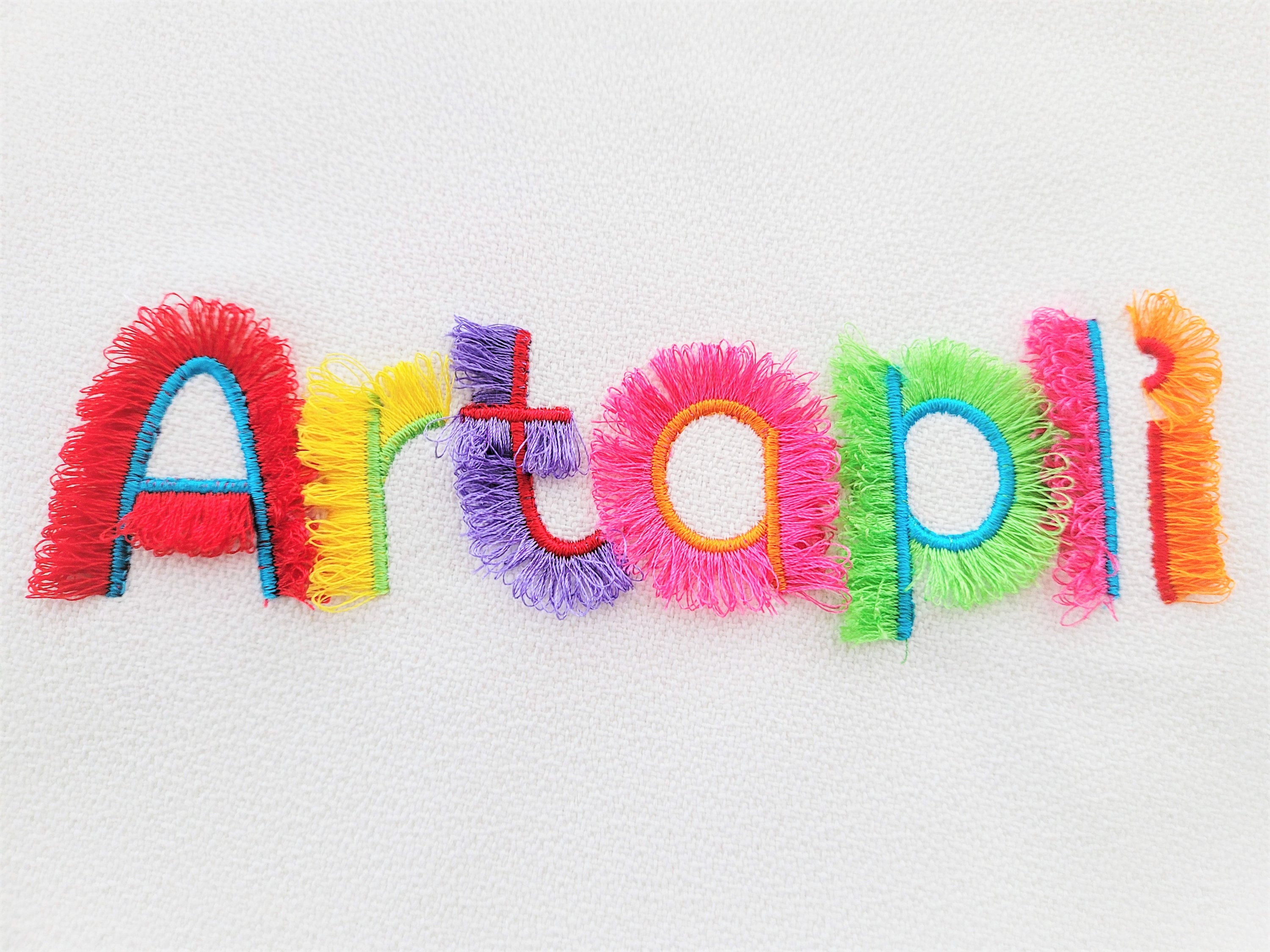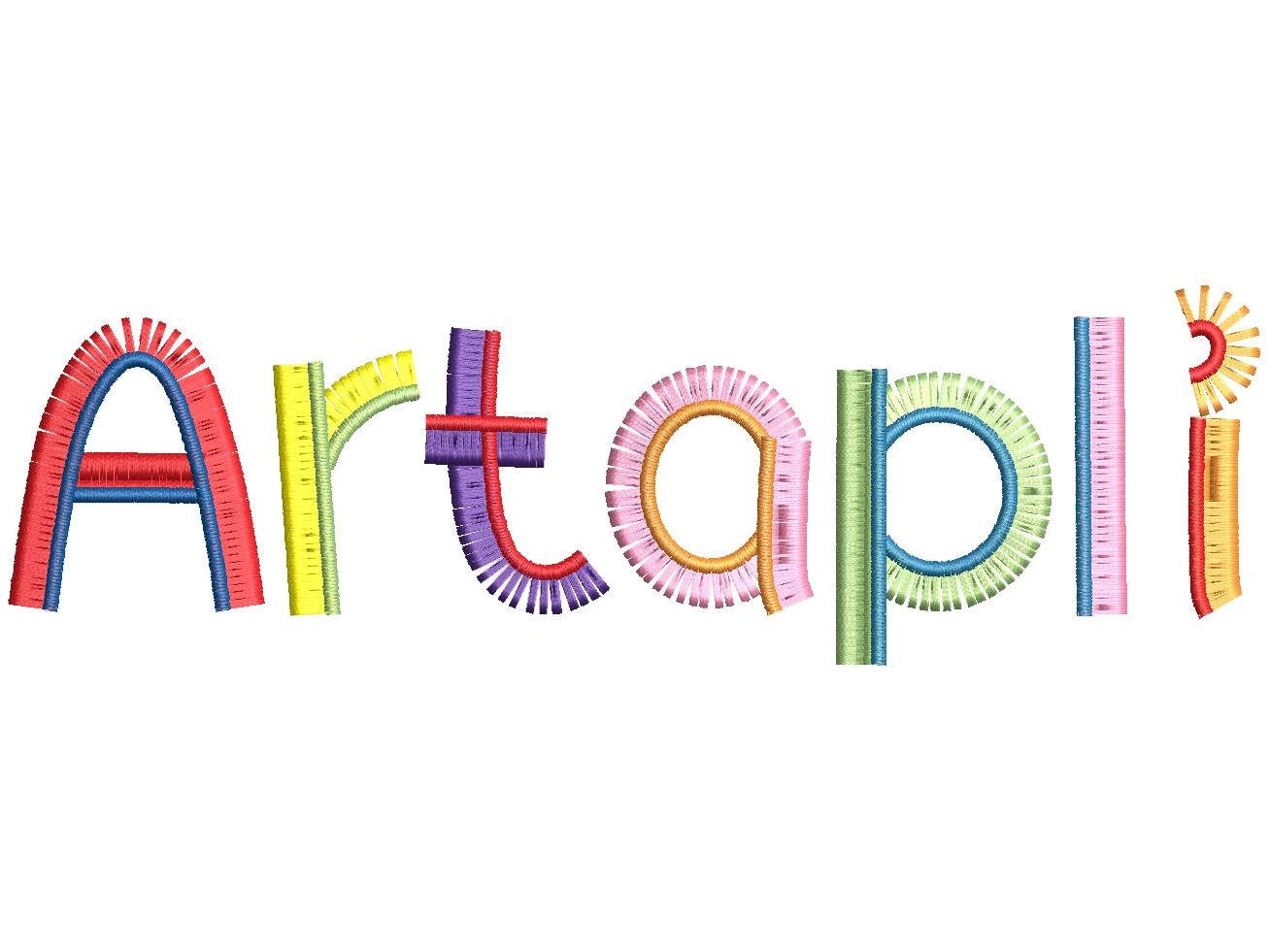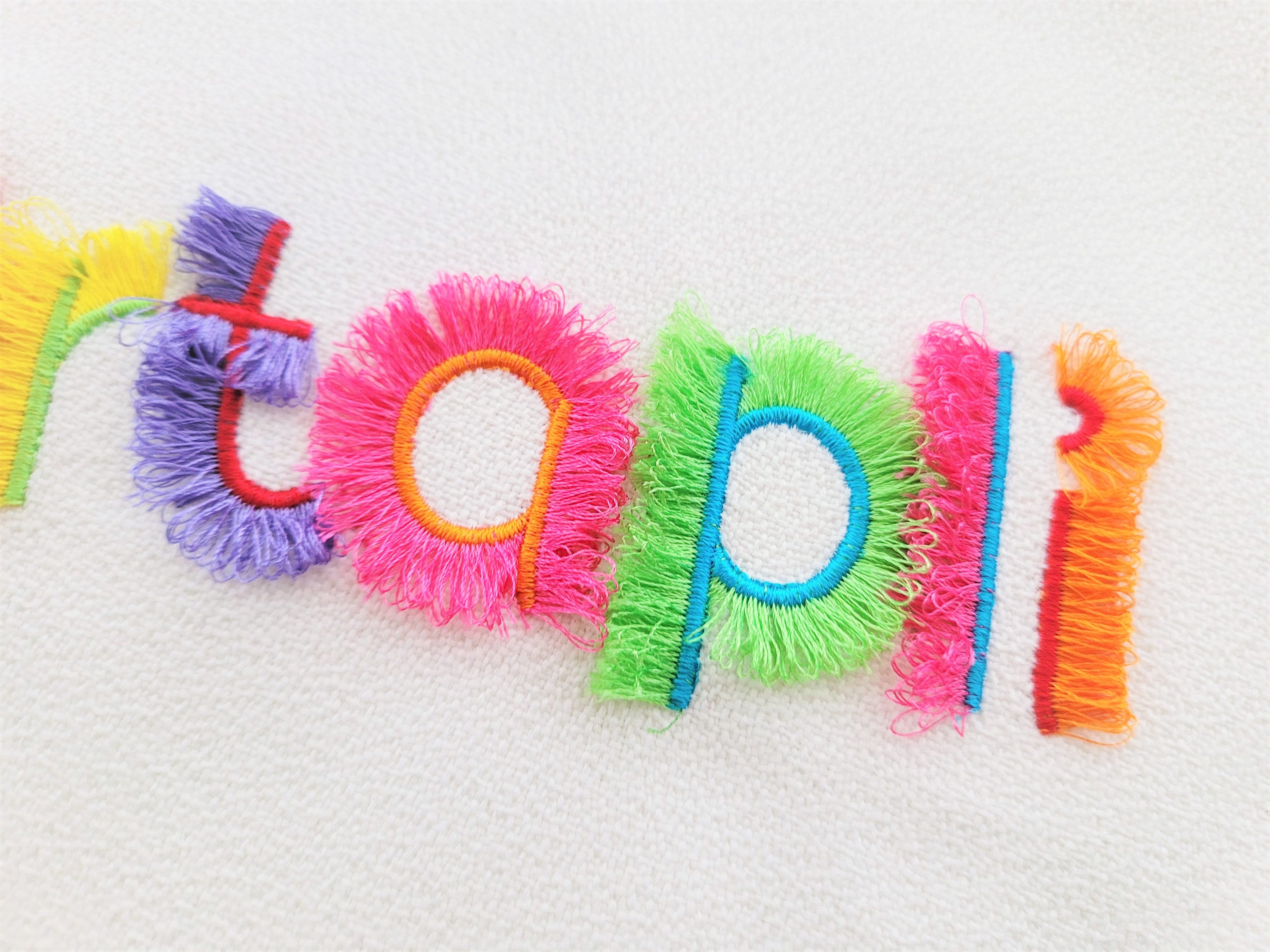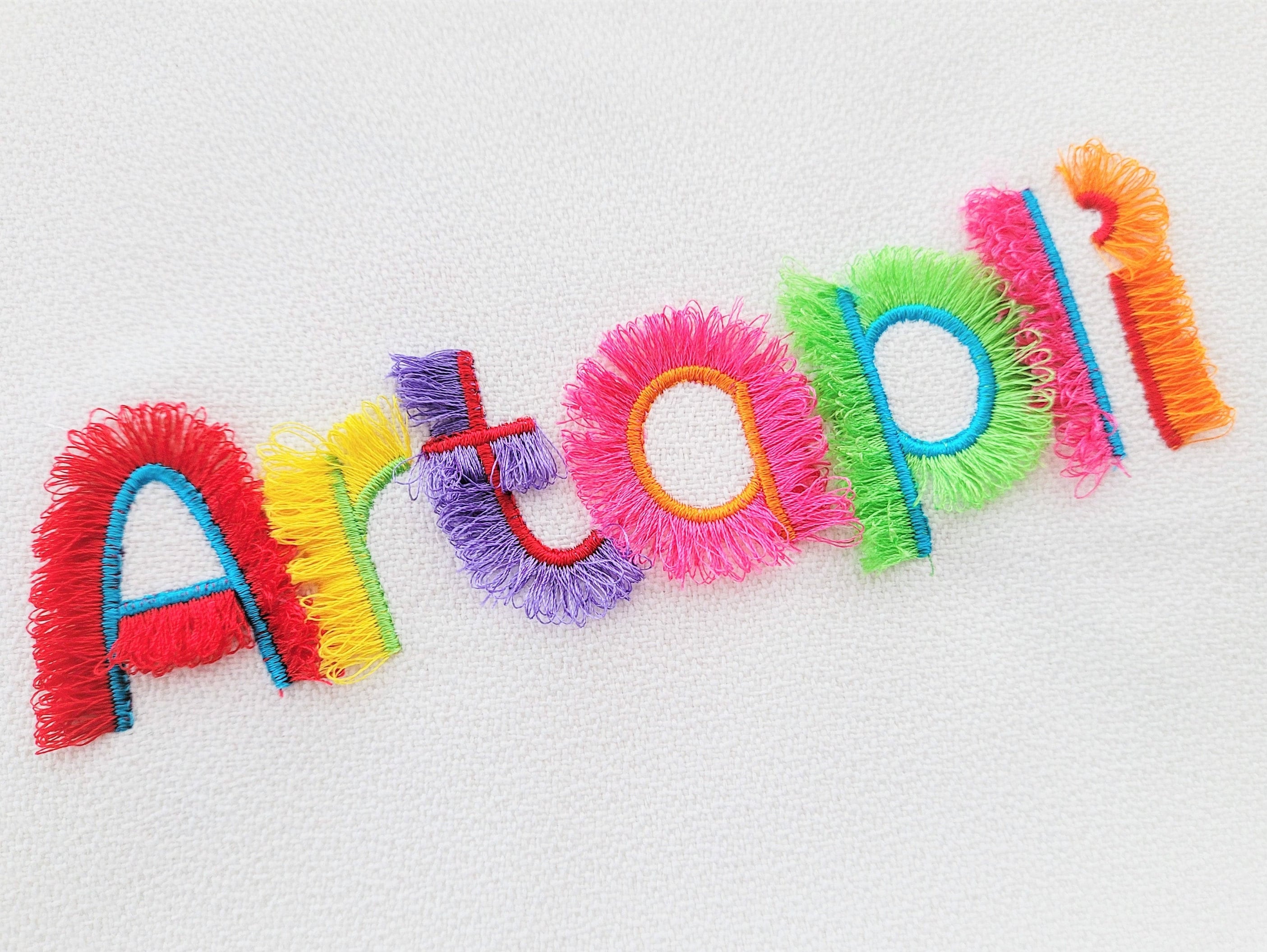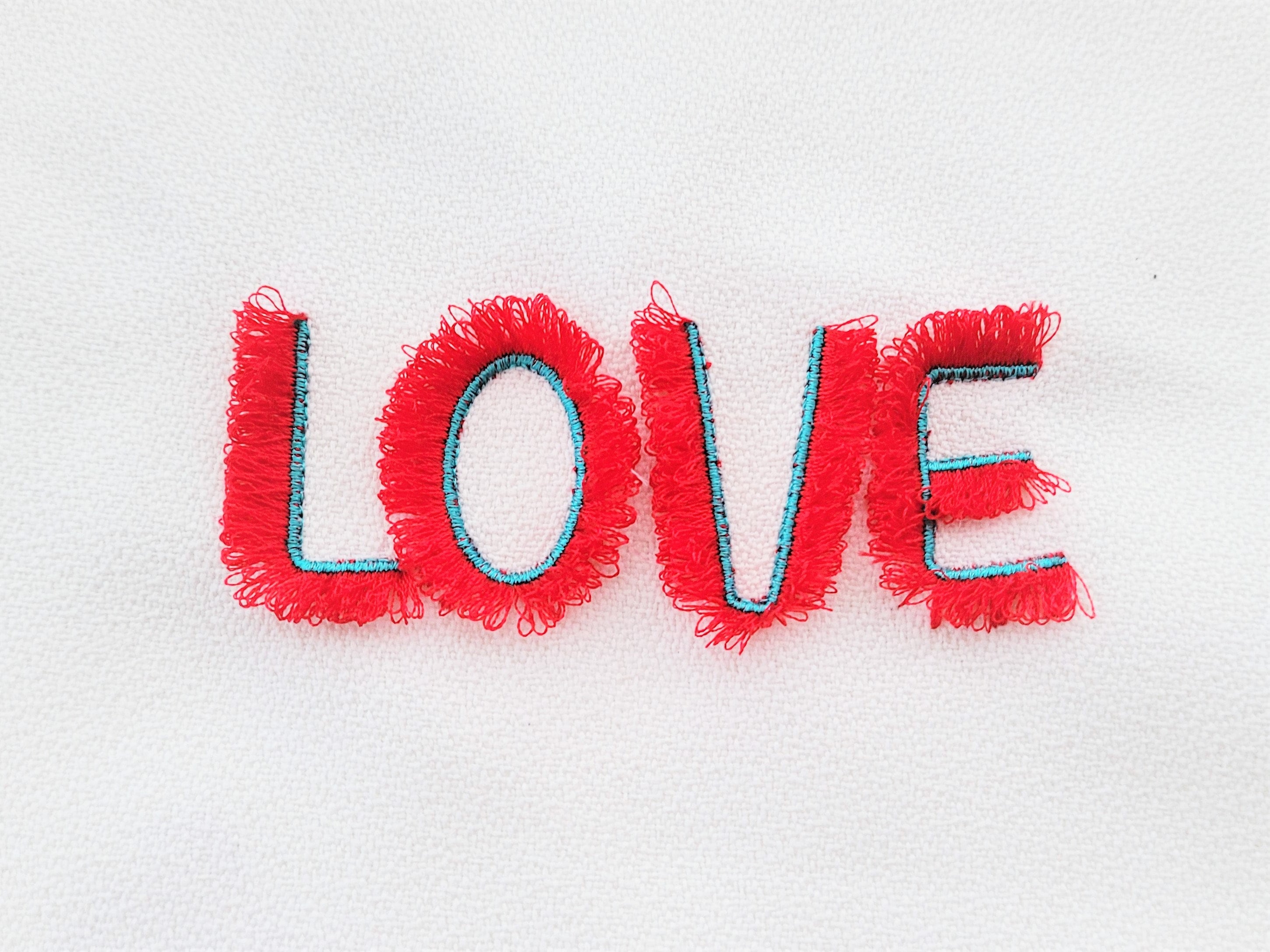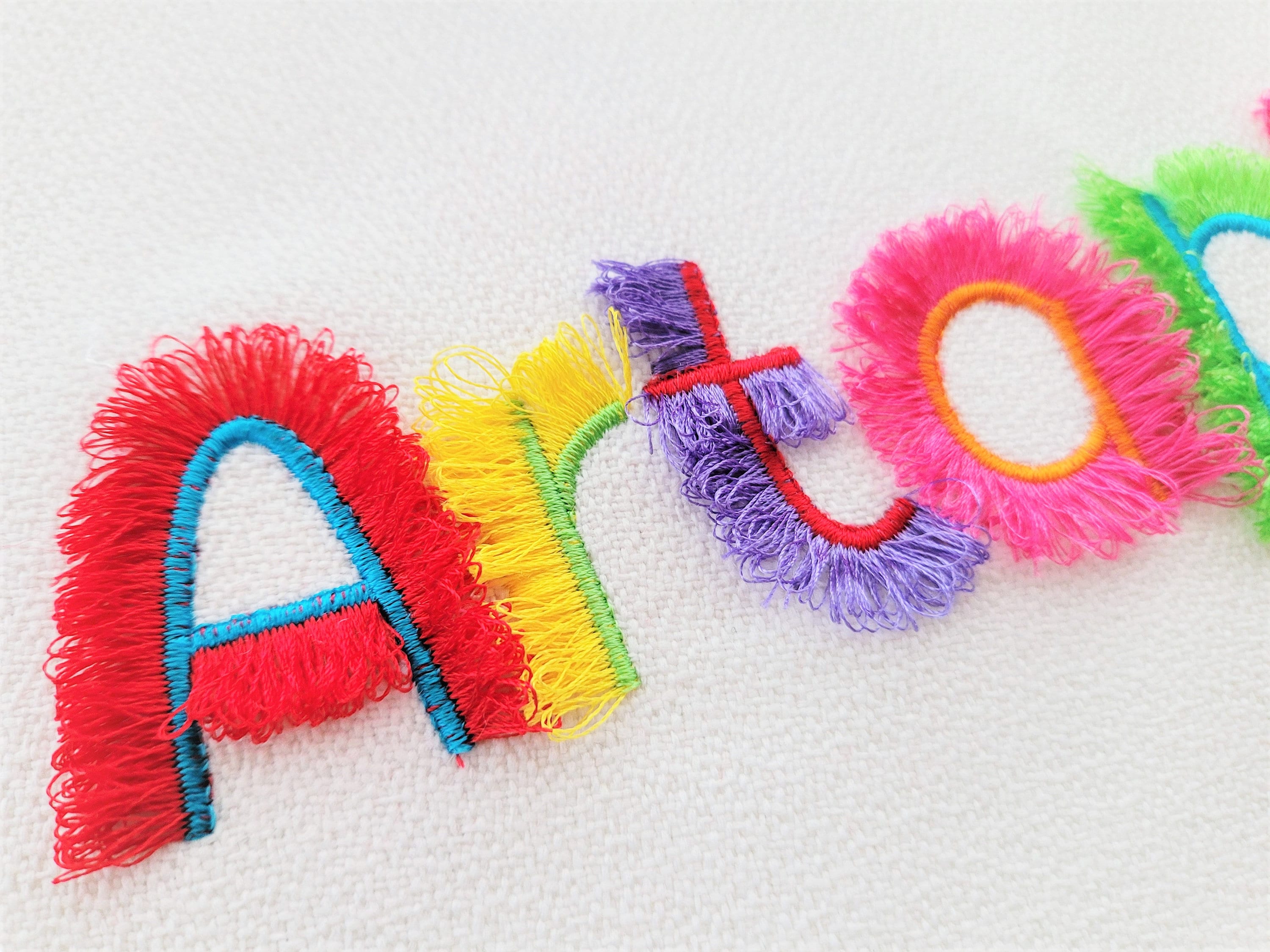
Cute fluffy Fringed Side Font alphabet machine embroidery designs assorted sizes, girly pretty fluffy name monogram letters, punctuation, BX included
The design has a special seam holding fringe in place.
How to make fringe.
It is easy. Embroider the design as usual. Large satin stitches will be loose. Once you complete stitching the design turn over your hoop to see the reverse side, and cut the bobbin thread, under large satin stitches. Turn the hoop back over and fluff up the "fringe" around.
Entire alphabet A - Z uppercase and lowercase, and punctuation marks.